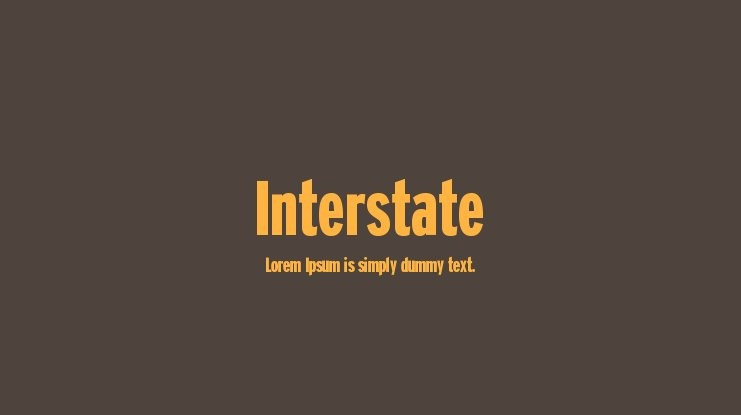
Interstate Font
Interstate Sans Serif  Font has become a favorite for branding, packaging, publications, and more. The family is a reinterpretation of Highway Gothic, which has been the official typeface for American highway signage for decades. Its design is ultimately based on signage alphabets developed in the late 1940s by Dr. Theodore Forbes, assisted by J.E. Penton and E.E. Radek. The family was expanded to include full support for Central and Eastern Europe languages, as well as Cyrillic and Greek.